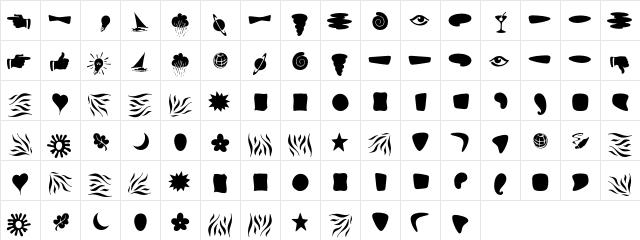
Fontesque Ornaments Black
Design Context for Fontesque Typeface
Fontesque brings ornamental detail and strong personality to headlines and identities, where visual impact matters more than quiet functionality.
Font Pairing: Pair with a clean neutral sans-serif for body copy to let Fontesque's character lead without overwhelming the composition.
Pro Tip: Use Fontesque exclusively at display sizes — it was designed to be seen, not read at length. Let a neutral companion handle body copy.